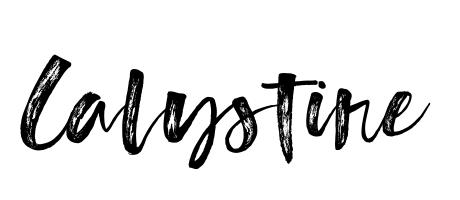
Calystine
Calystine: A flowing script font, Calystine dances across the page with elegant, slightly textured strokes. Its graceful curves and delicate serifs exude sophistication and femininity, perfect for invitations, logos, or any project needing a touch of refined charm. The slightly imperfect texture adds a handmade feel.